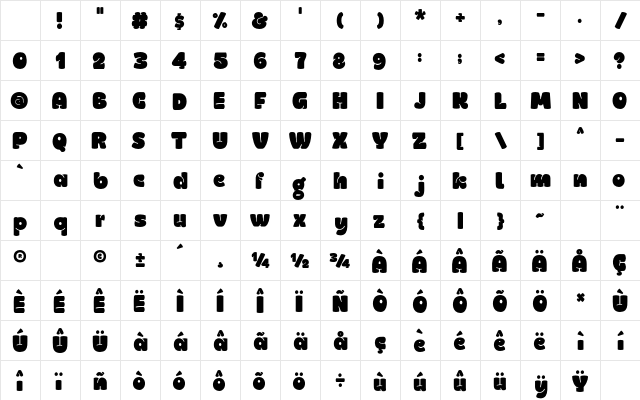
karen is a composed and adaptable typeface that performs quietly and consistently across a wide range of design contexts.
Pro Tip: Use karen in both headline and body roles to test its range before committing to a single application.